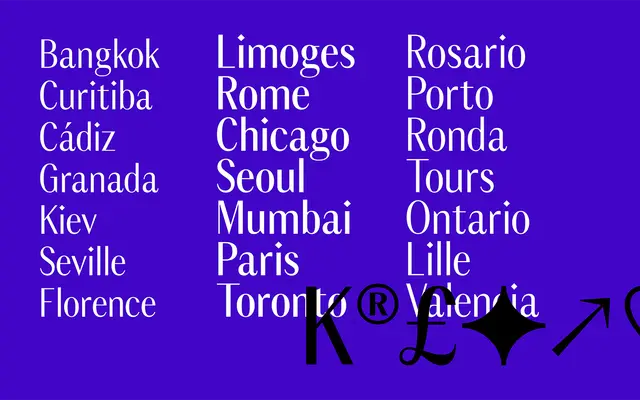
A high-contrast sans serif from Pedro Arilla, spanning seven weights from Light to Poster with a variable font axis included in the full family purchase.
Designed by Pedro Arilla and released in April 2023, At Queen draws on strong stroke contrast and refined curves to produce a sans serif with a distinctly formal character. Seven static styles run from Light through to Poster, mirrored by a single-axis variable font covering the full weight range. OpenType features include round dot alternates, old-style numerals, circled numerals and case-sensitive forms, with 603 glyphs per style supporting over 100 Latin-script languages. It sits in the foundry's Royal Collection alongside At King.
A high-contrast sans serif with strong stroke modulation akin to display serifs but without serifs, placing it firmly in the high-contrast or didone-influenced sans category.